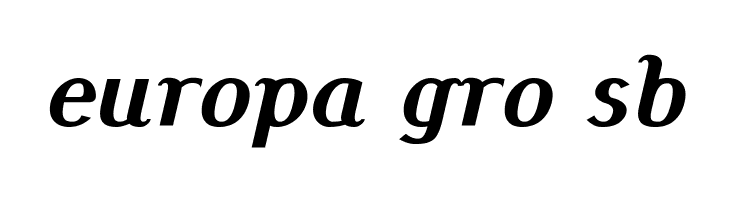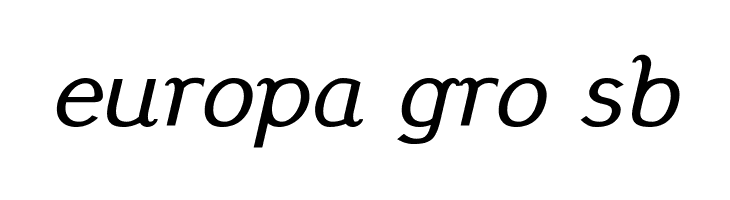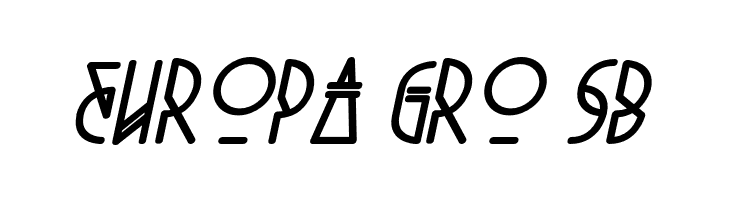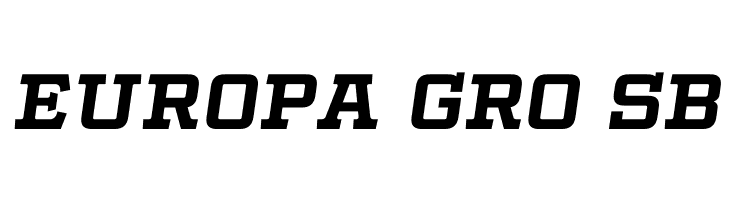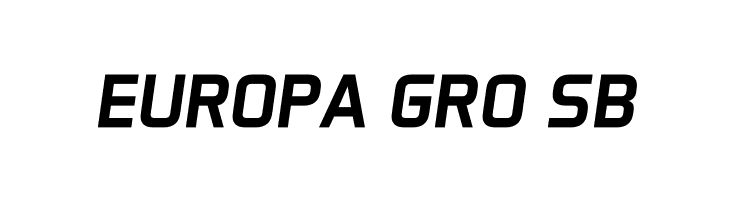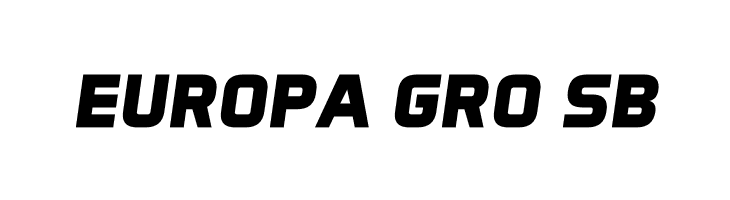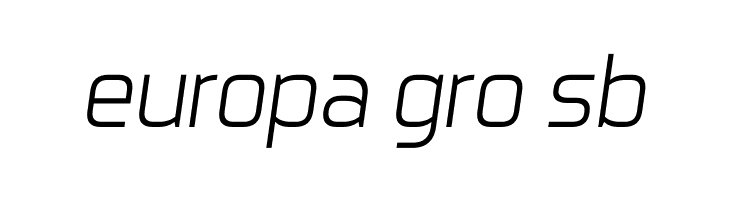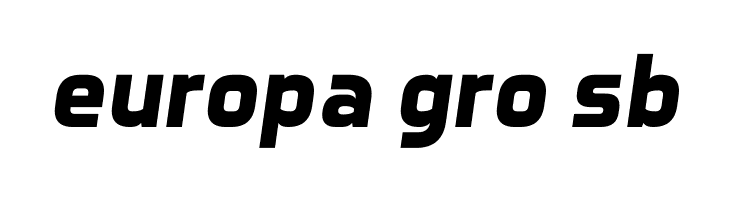
An elegant italic font with smooth curves and a dynamic slant.
A bold, italicized font with geometric and angular design elements.
A bold, italic slab serif font with a strong and dynamic presence.
A sleek, modern italic font with a geometric design and consistent stroke width.
A bold, italicized font with a modern, dynamic style and strong geometric shapes.
A sleek, modern, light italic font with a streamlined appearance.
A bold, italicized font with a dynamic and modern style.